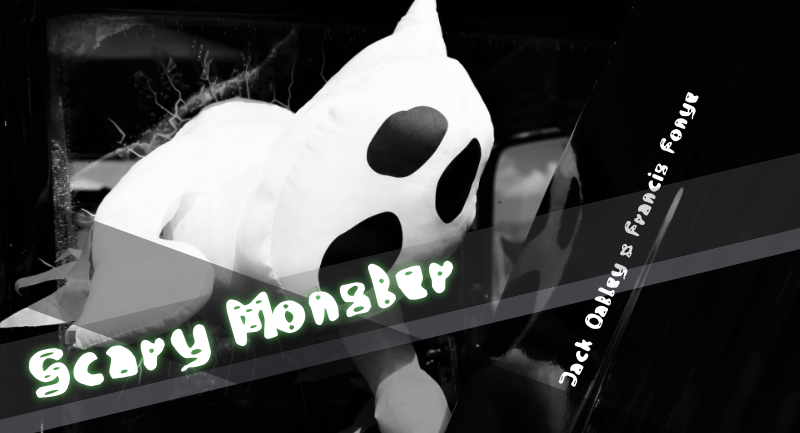
Preview and download Scary Monster Font. Created by Jack Oatley in Holiday Halloween styles with 100% Free license.
This font "Scary Monster" is created by Jack Oatley & Francis Fonye. Co-member of Bitty/Brixdee on�http://www.dafont.com/profile.php?user=764521 This font is inspired by Big Monster & Little Monster, fonts previously created by Jack Oatley, which have been revised by Francis Fonye to give it a new look. It is 100% free to use, though credit is appreciated and it'd be cool to know where you used it. You must not claim it as your own. The background picture was made by or obtained from: Pixabay |